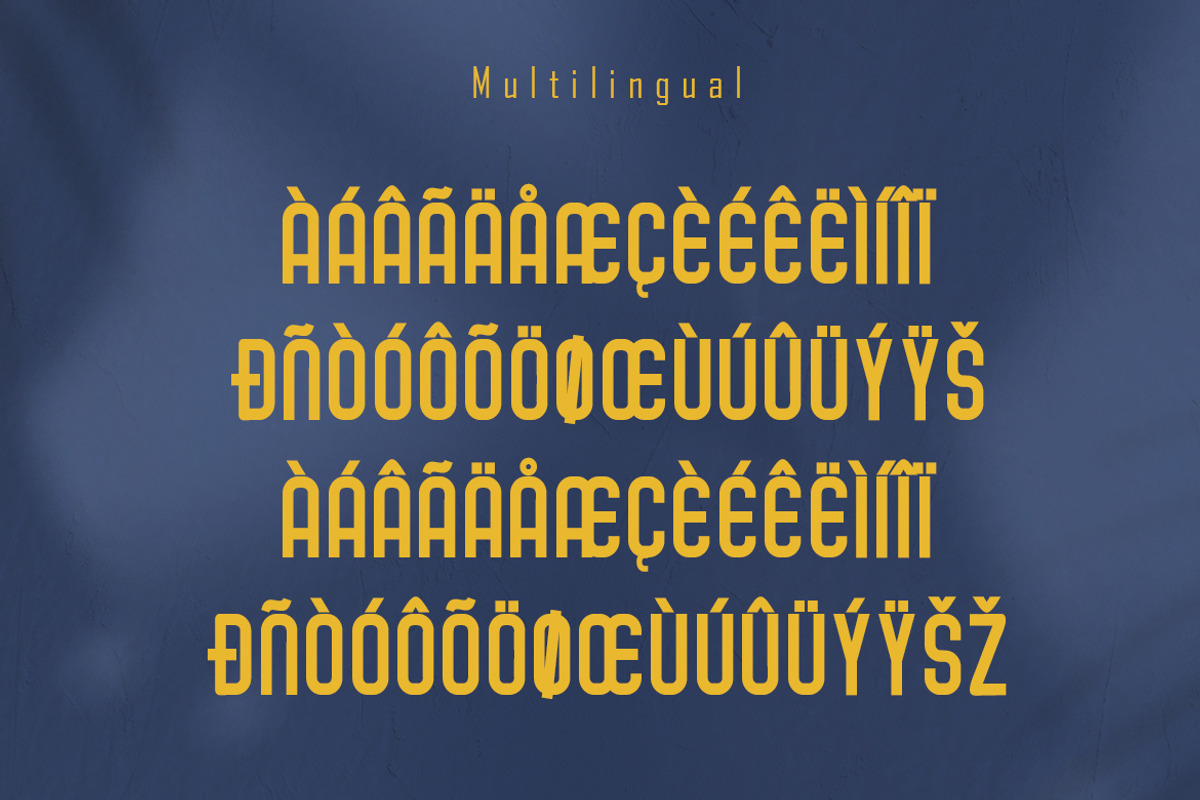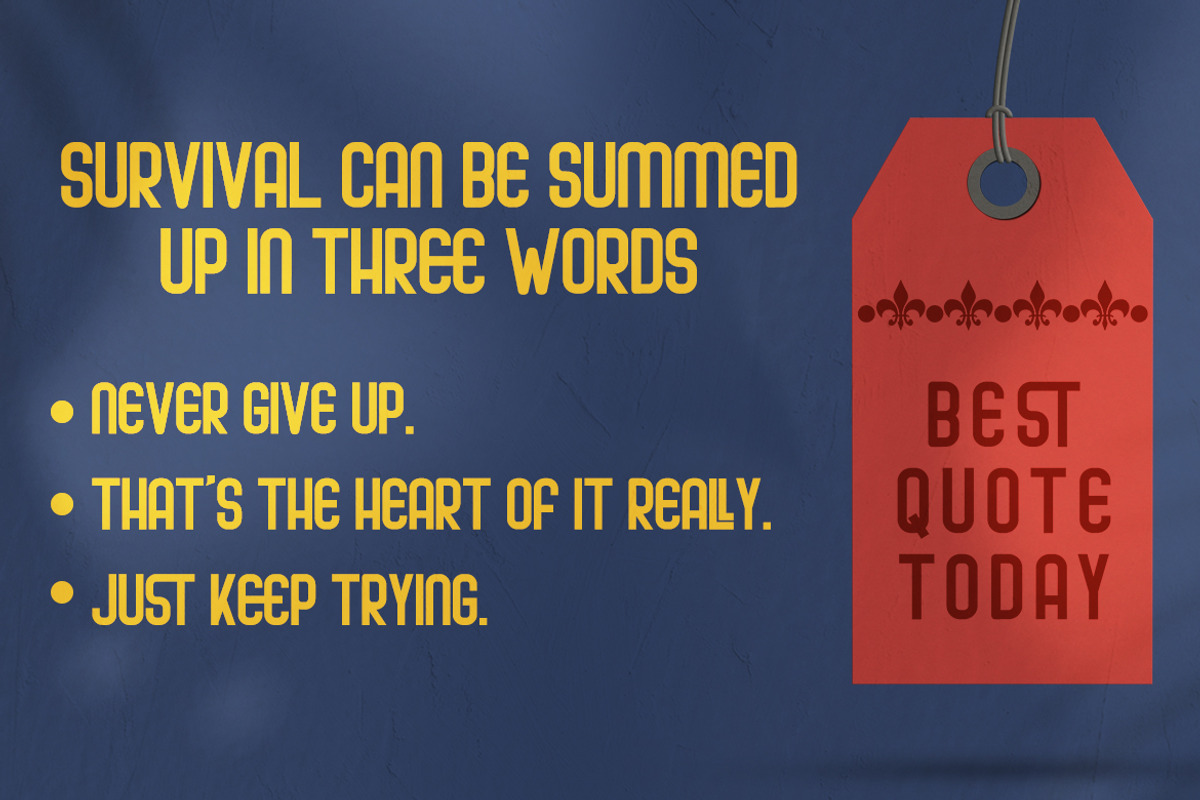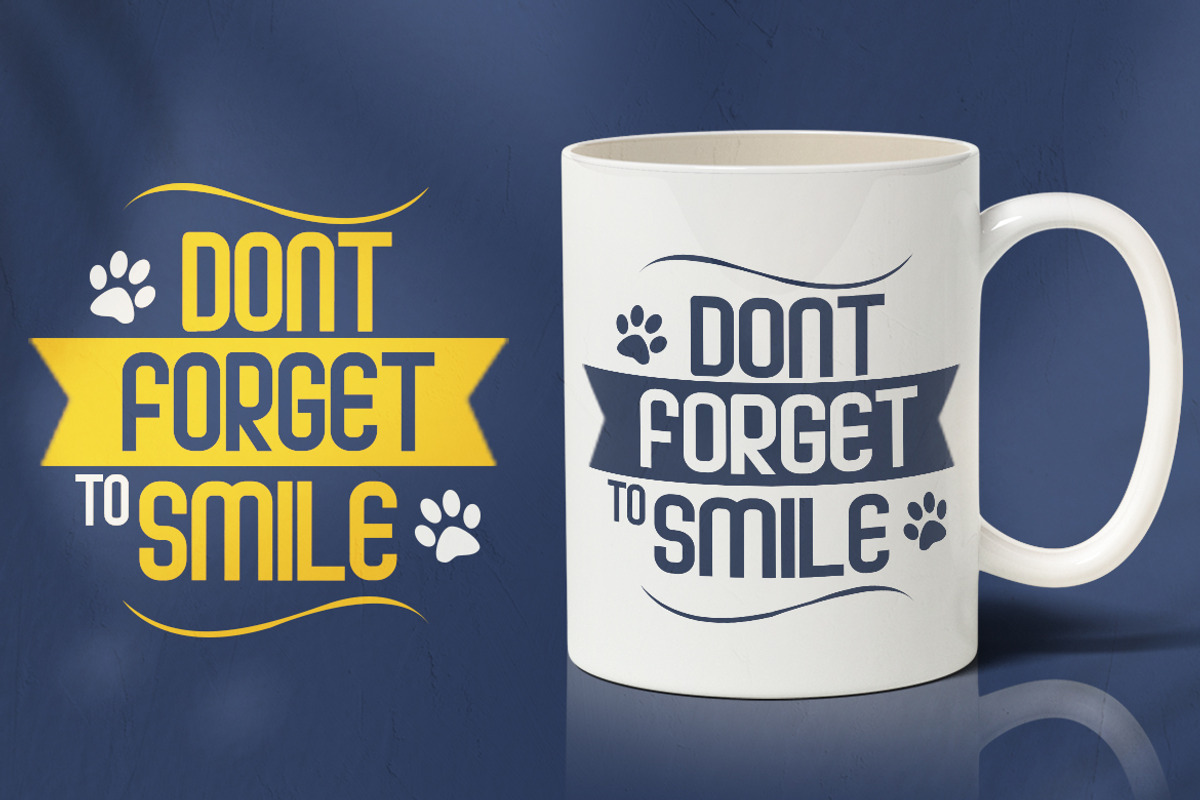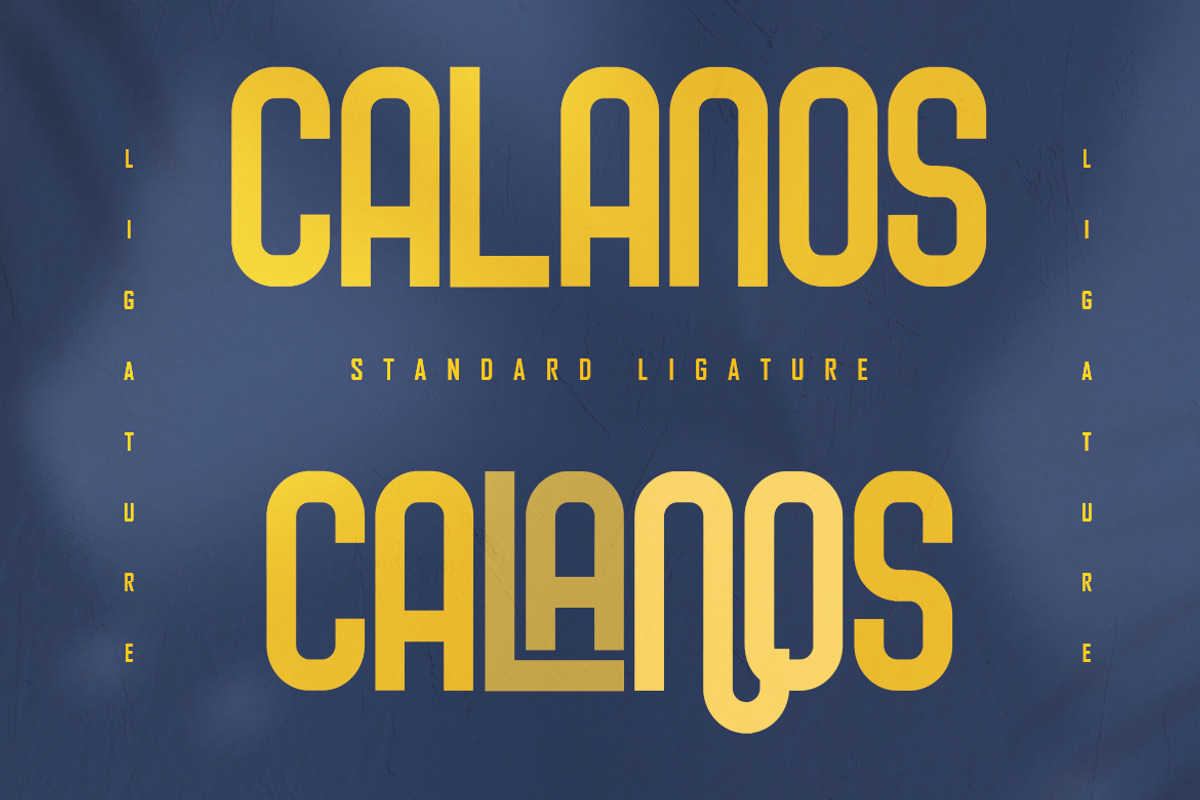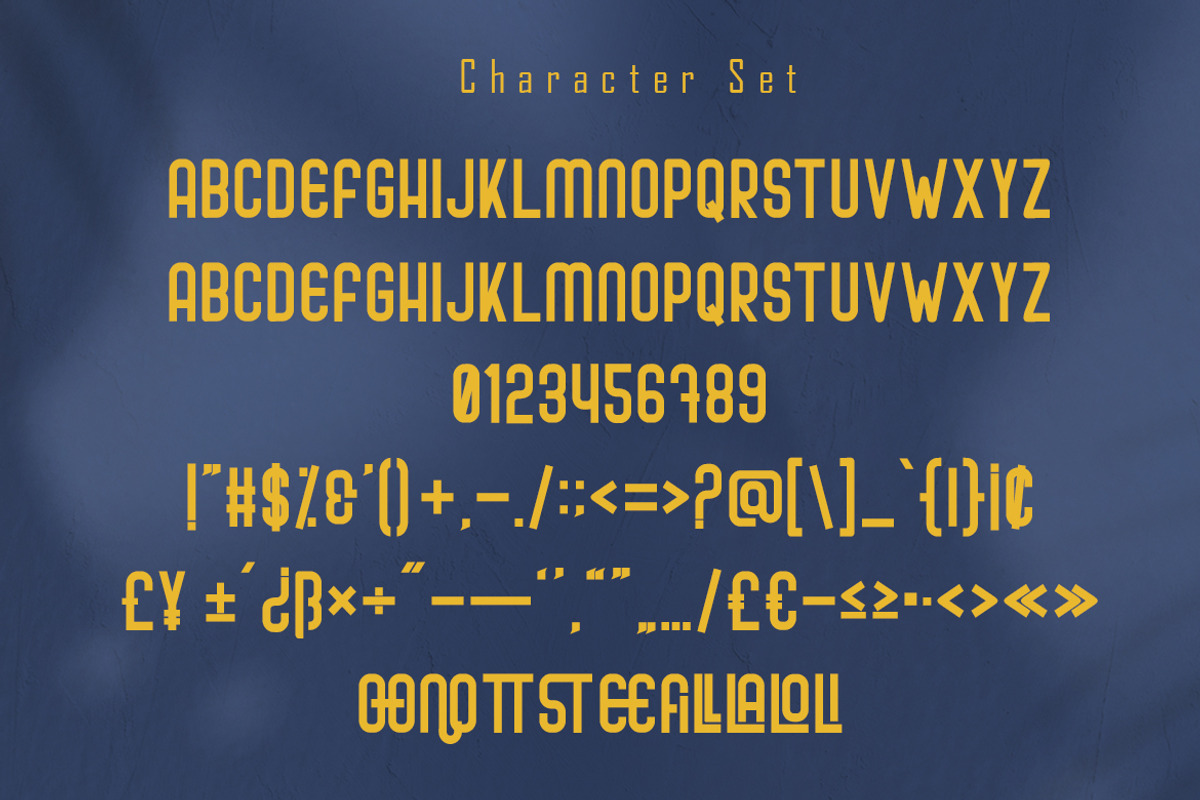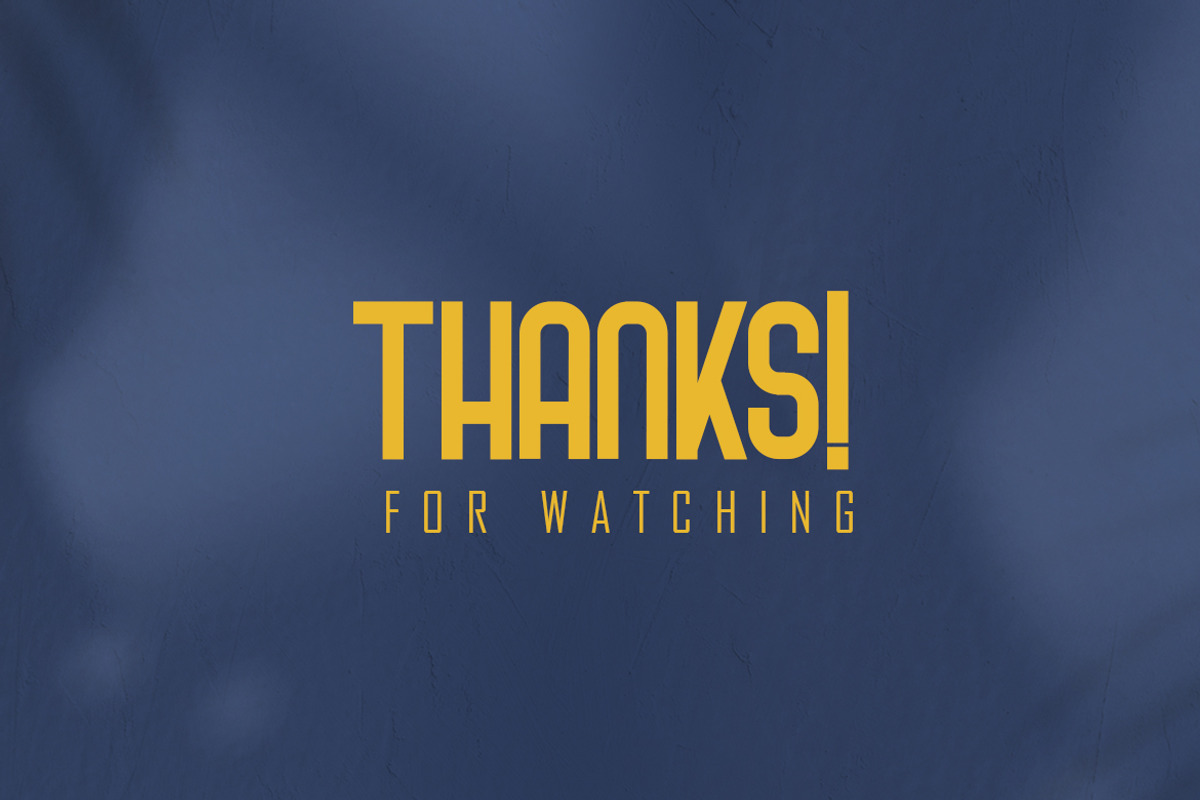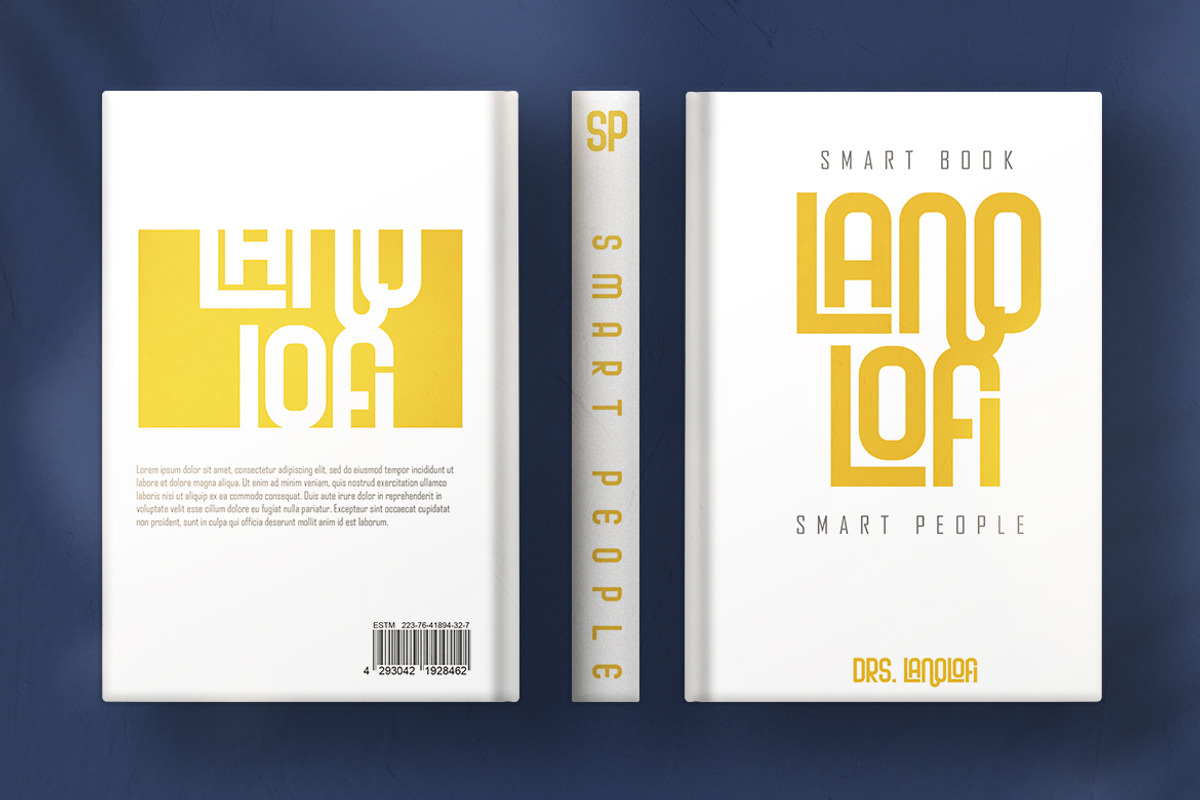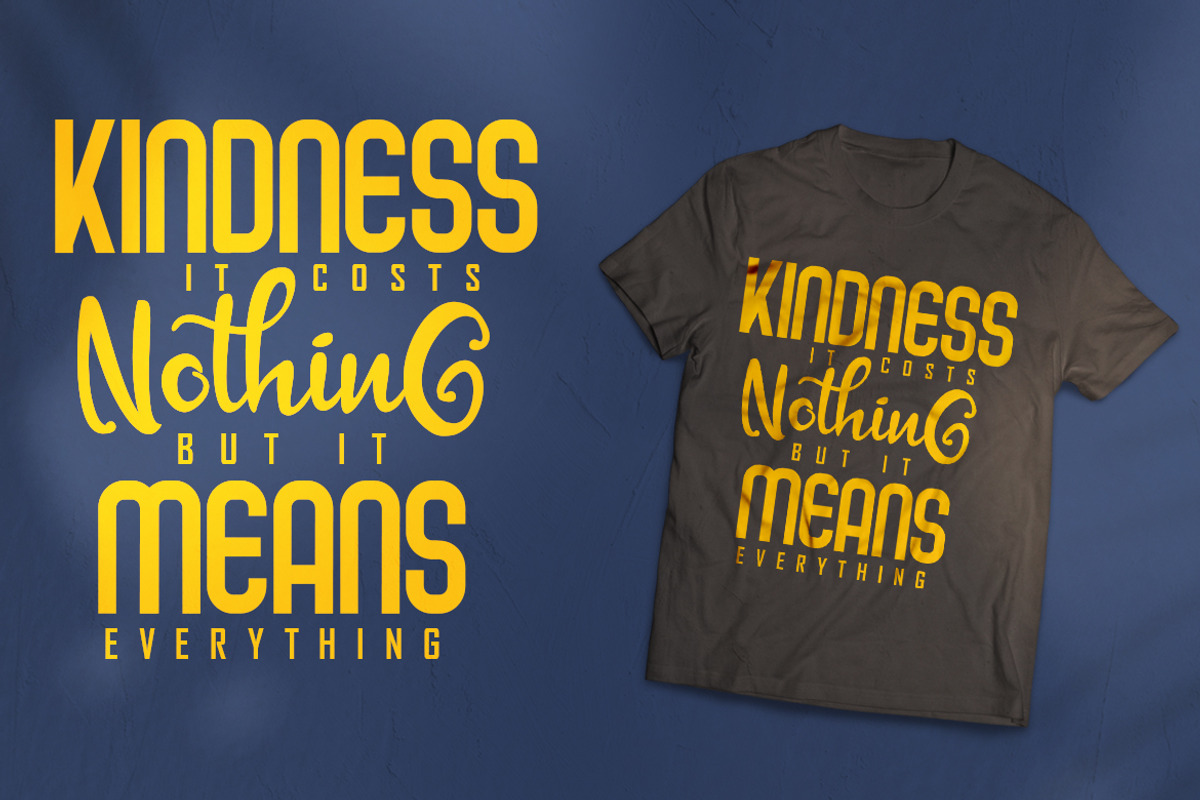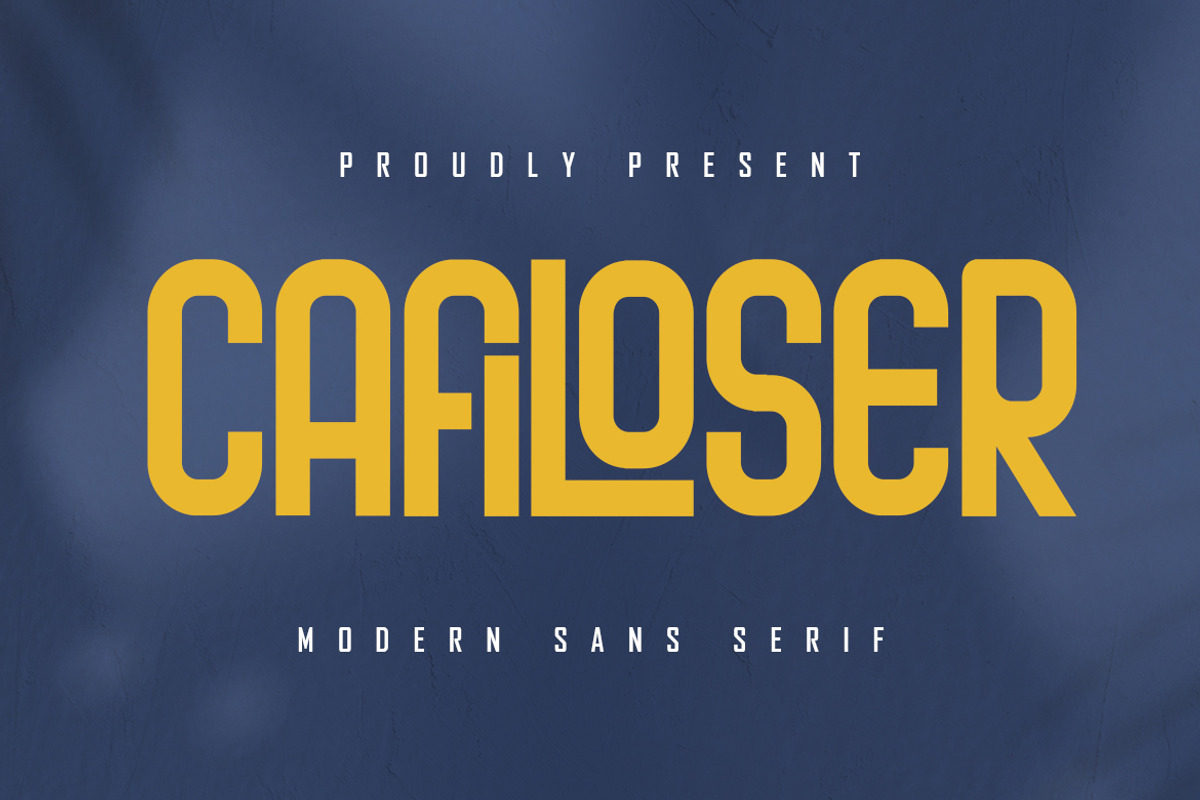
Cafiloser - Modern Sans Serif
Cafiloser is a modern and cool sans serif font. No matter the topic, this font will be an incredibly asset to your fonts’ library, as it has the potential to elevate any creation.